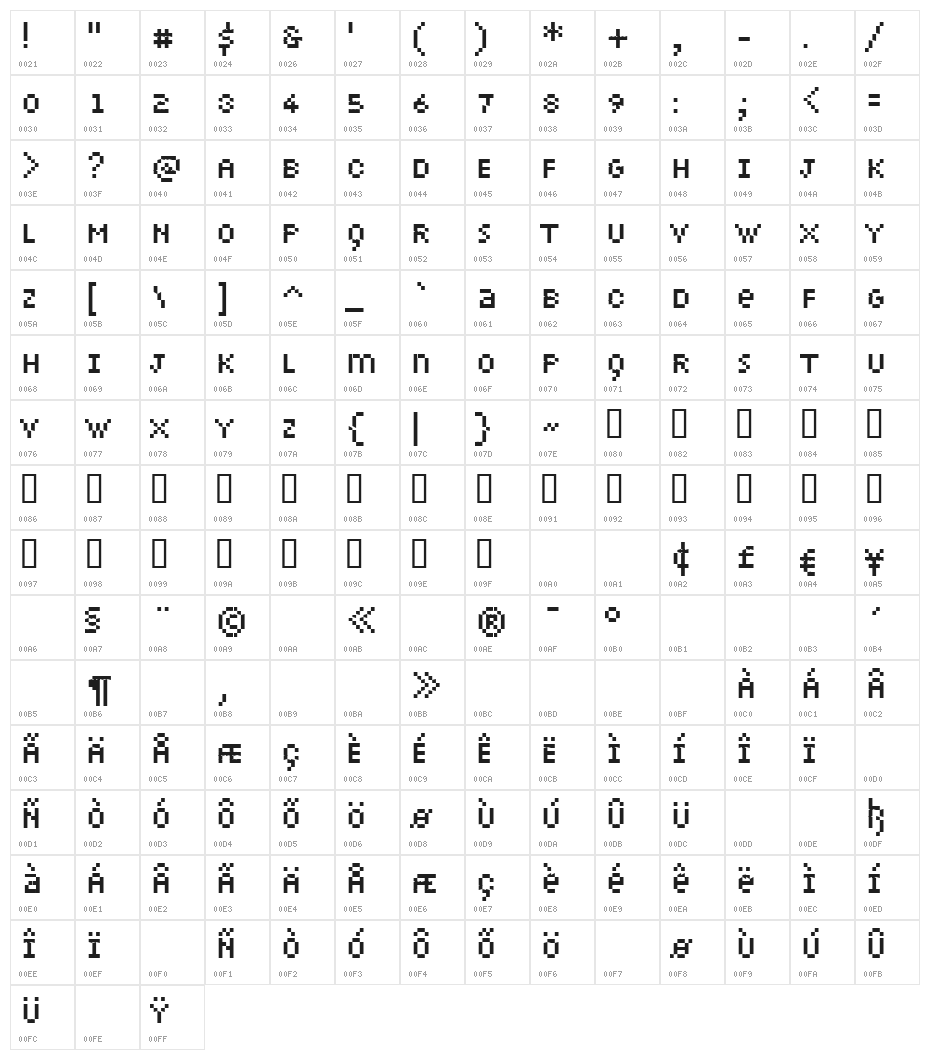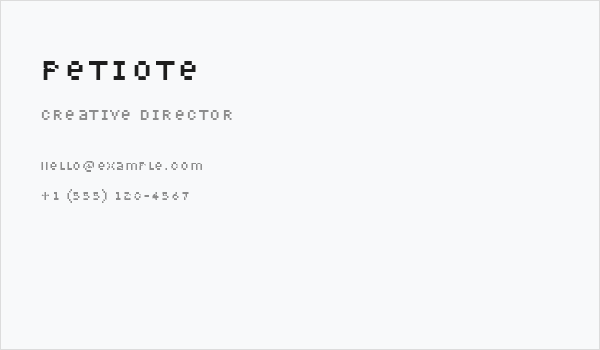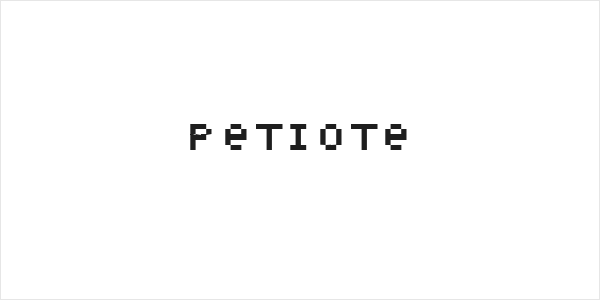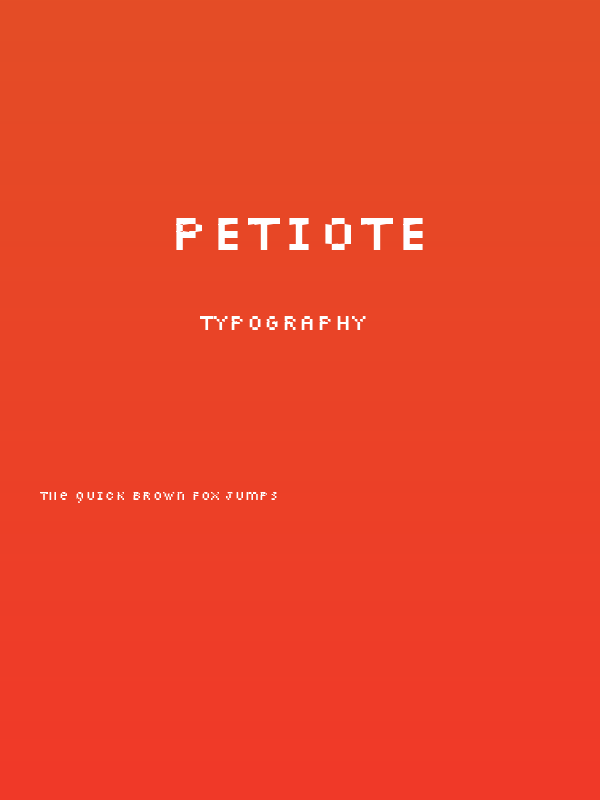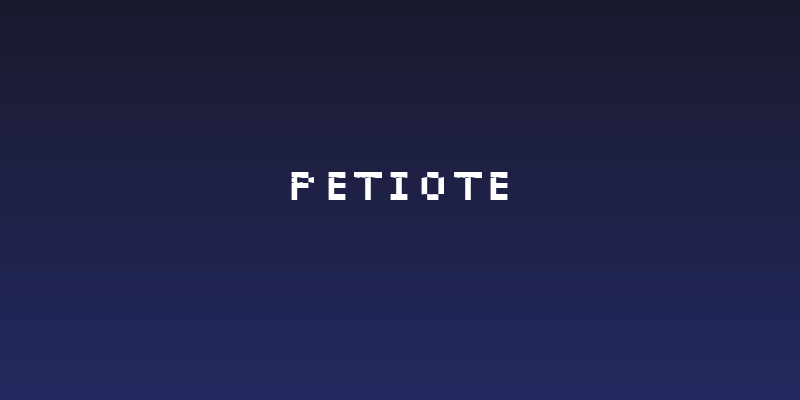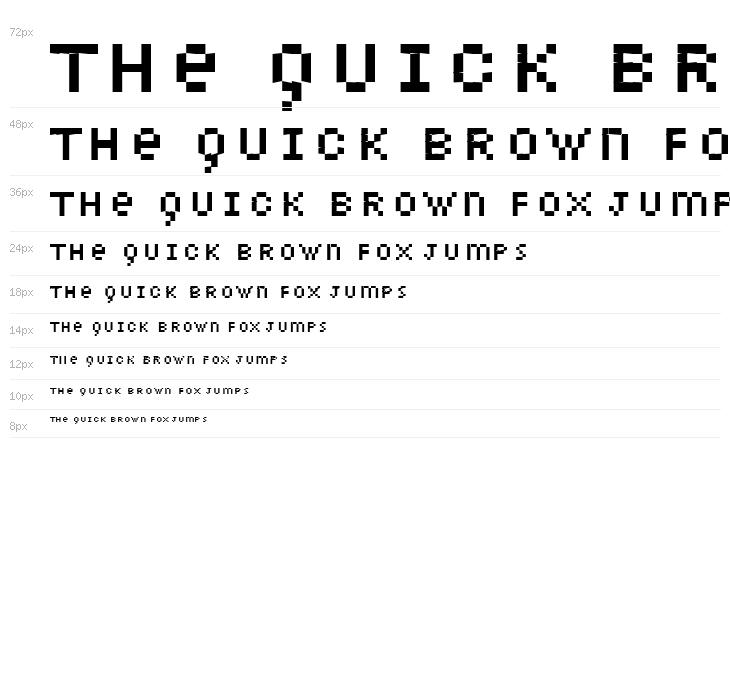
Petiote Font
Petiote Description
This font features a pixelated, grid-like design reminiscent of early digital displays and retro video games. Each character is composed of small, square blocks that create a distinct, nostalgic aesthetic. The uppercase and lowercase letters maintain a consistent height, contributing to a uniform appearance. Numbers and special characters follow the same pixelated style, ensuring a cohesive look across all glyphs. The font's simplicity and geometric structure make it highly legible, even at smaller sizes. Its unique style is perfect for projects that aim to evoke a sense of nostalgia or a digital, tech-inspired theme.
Overall StyleRetro, Digital
Use CaseHeadlines, Logos, Digital displays
Proposed ProjectsIdeal for video game design, retro-themed posters, digital art projects, and tech-inspired branding.